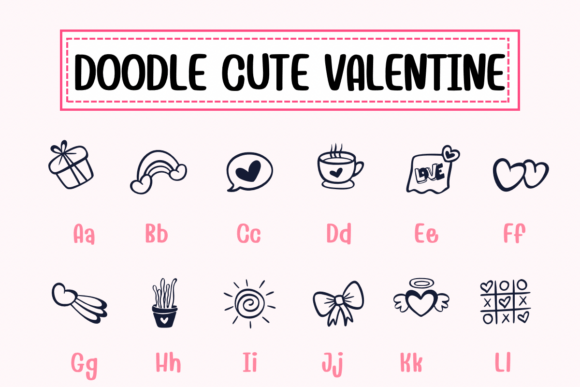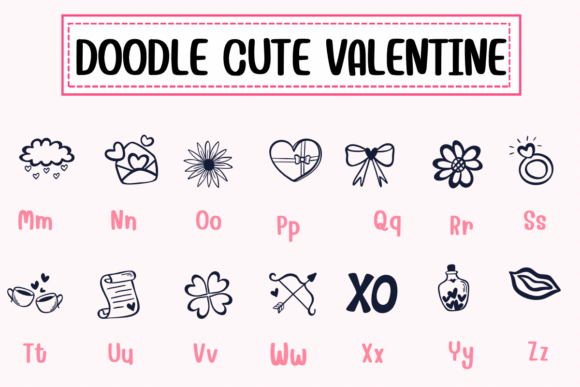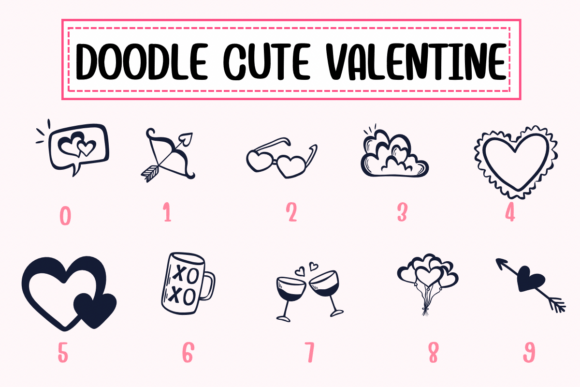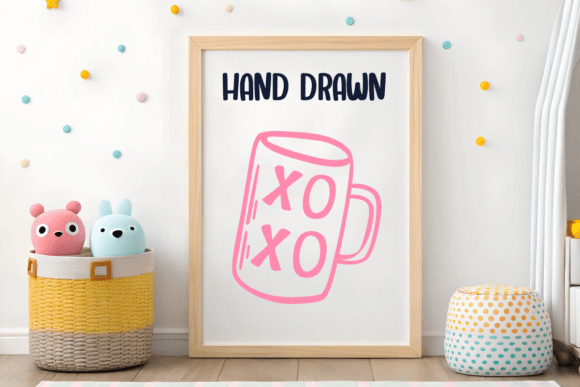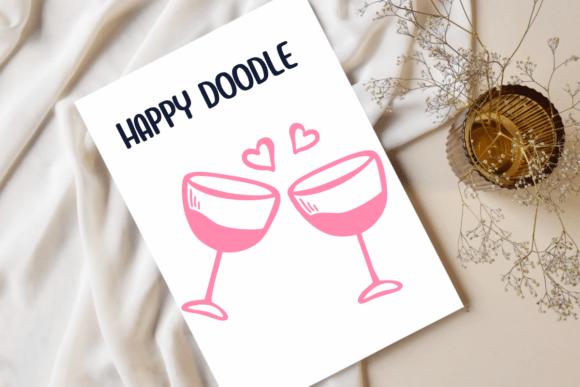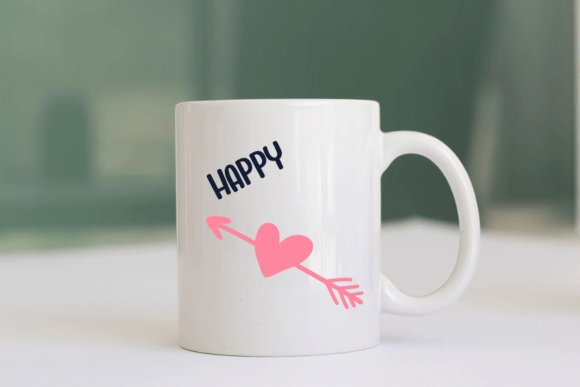
Doodle Cute Valentine Font: Add a Touch of Whimsy to Your Creative Projects
Are you looking for a font that can add a dash of cuteness to your creative projects? Look no further than the Doodle Cute Valentine Font! This lovely dingbats font is perfect for designers, crafters, and anyone who wants to create something special for Valentine’s Day or any other occasion. In this article, we’ll explore the features of this delightful font and how you can use it to take your projects to the next level.
What is Doodle Cute Valentine Font?
Doodle Cute Valentine Font is a dingbats font that features adorable doodle-style illustrations of hearts, flowers, and other cute designs. The font is made up of a collection of glyphs that can be used to create fun and playful text designs. With its whimsical and romantic feel, this font is perfect for creating Valentine’s Day cards, invitations, and other crafts.
Key Features of Doodle Cute Valentine Font
- Cute and playful design: The font features a range of adorable illustrations, including hearts, flowers, and other designs that are sure to bring a smile to anyone’s face.
- Dingbats font: The font is a dingbats font, which means that it consists of glyphs rather than traditional letters. This makes it perfect for creating decorative text designs.
- Scalable: The font is scalable, which means that you can use it to create designs of any size, from small crafts to large banners.
How to Use Doodle Cute Valentine Font
Using Doodle Cute Valentine Font is easy! Here are a few ways you can incorporate it into your creative projects:
- Create Valentine’s Day cards: Use the font to create adorable Valentine’s Day cards for friends and loved ones.
- Make decorations: Use the font to create decorations for your home or office, such as garlands, banners, and signs.
- Design invitations: Use the font to create invitations for parties, events, and other gatherings.
- Add a personal touch: Use the font to add a personal touch to your crafts, such as scrapbook pages, journal entries, and other DIY projects.
Tips for Using Doodle Cute Valentine Font
Here are a few tips for getting the most out of Doodle Cute Valentine Font:
- Experiment with different colors: The font looks great in a range of colors, so don’t be afraid to experiment and find the perfect hue for your project.
- Mix and match glyphs: The font features a range of glyphs, so try mixing and matching them to create unique and interesting designs.
- Use it with other fonts: The font pairs well with other fonts, so try using it with a bold or script font to create a striking contrast.
Doodle Cute Valentine Font is a fun and playful font that is perfect for designers, crafters, and anyone who wants to add a touch of whimsy to their creative projects. With its cute and adorable illustrations, this font is sure to bring a smile to anyone’s face. Whether you’re creating Valentine’s Day cards, decorations, or other crafts, Doodle Cute Valentine Font is a great choice. So why not give it a try and see what amazing creations you can come up with?